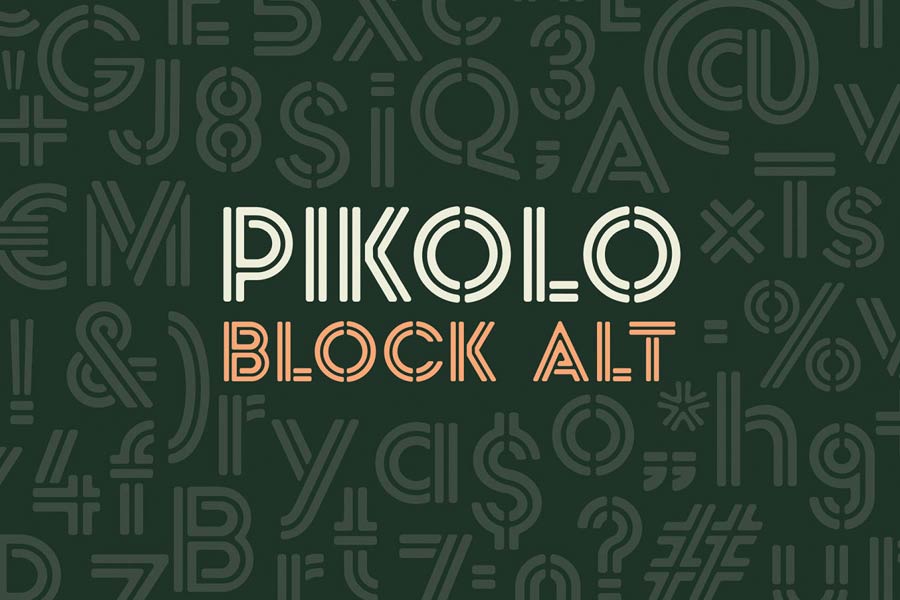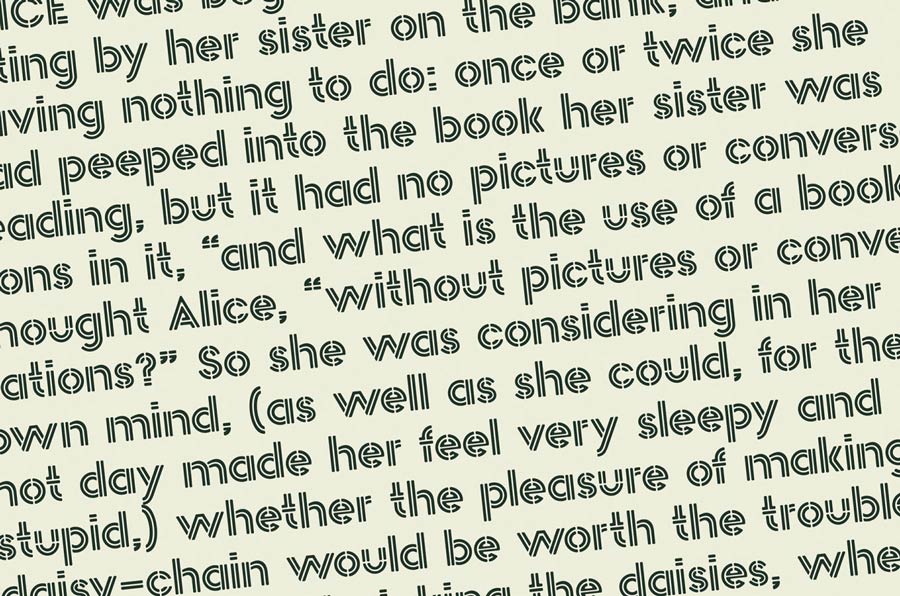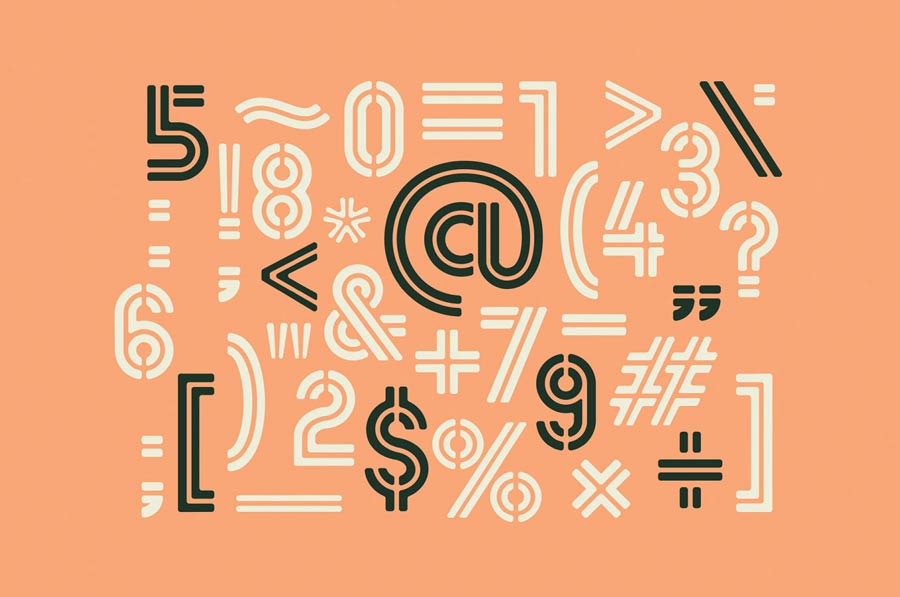
Pikolo Block Alt is a kind of display font that will make you look twice. It has clever separation of blocks that form each letters, and some comes with surprising intertwine in it. Each characters are carefully constructed and pairing with rounded corner finish, making this font looks smooth and well done.
It comes with the standard upper and lowercases, numbers and symbols plus ligatures too. Pikolo Block Alt is definitely a great choice for range of creative works like logo design, decorative typographic posters, invitation cards, labels, banner graphics and more.